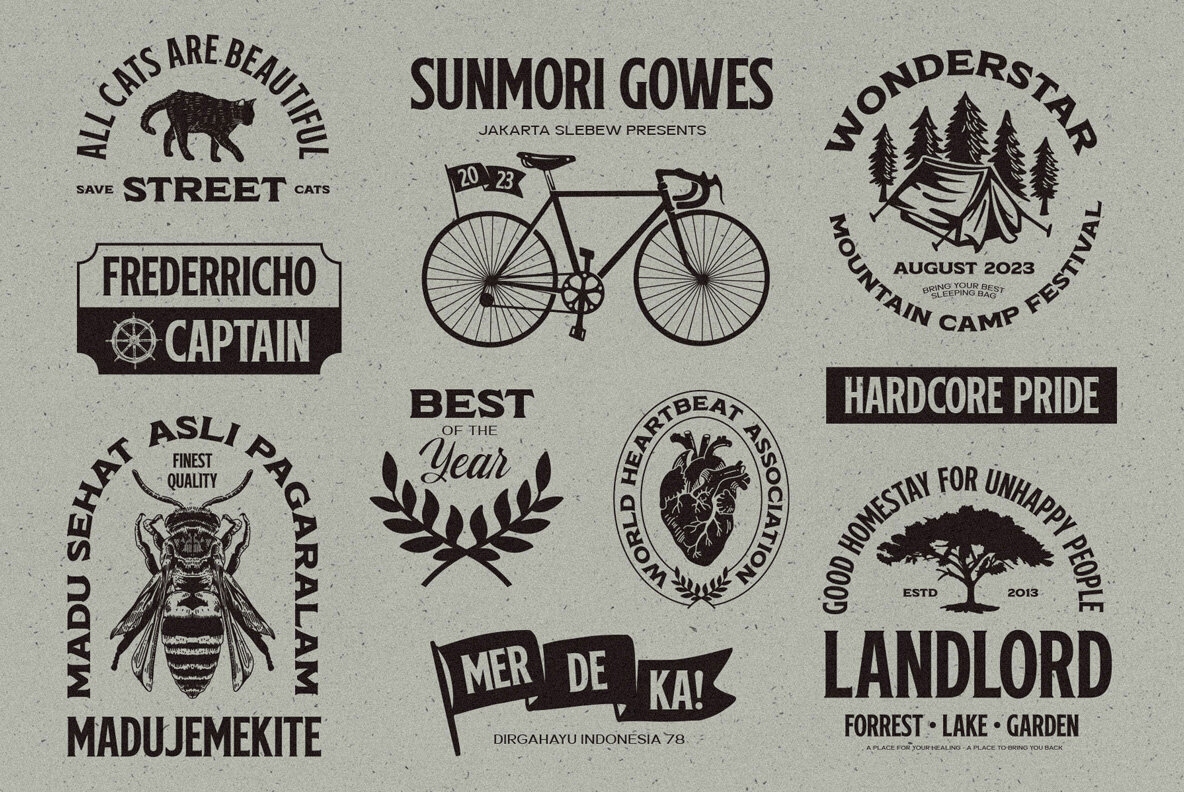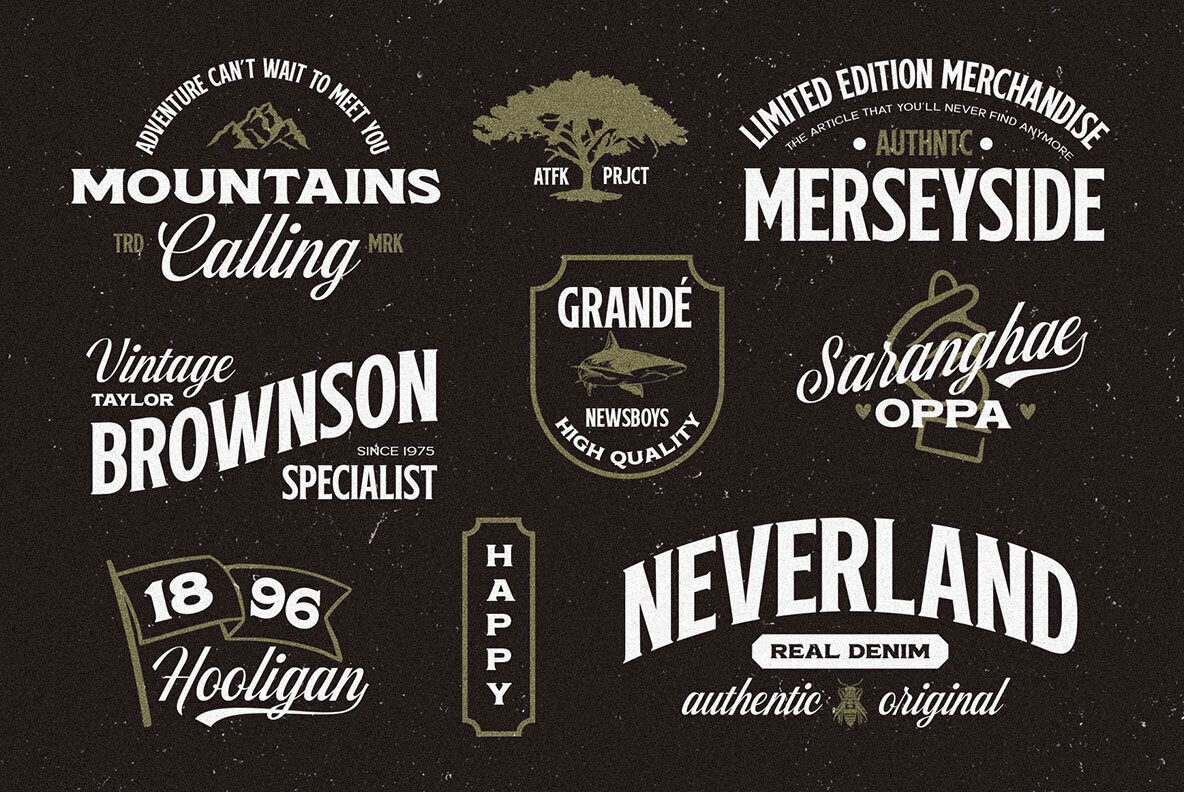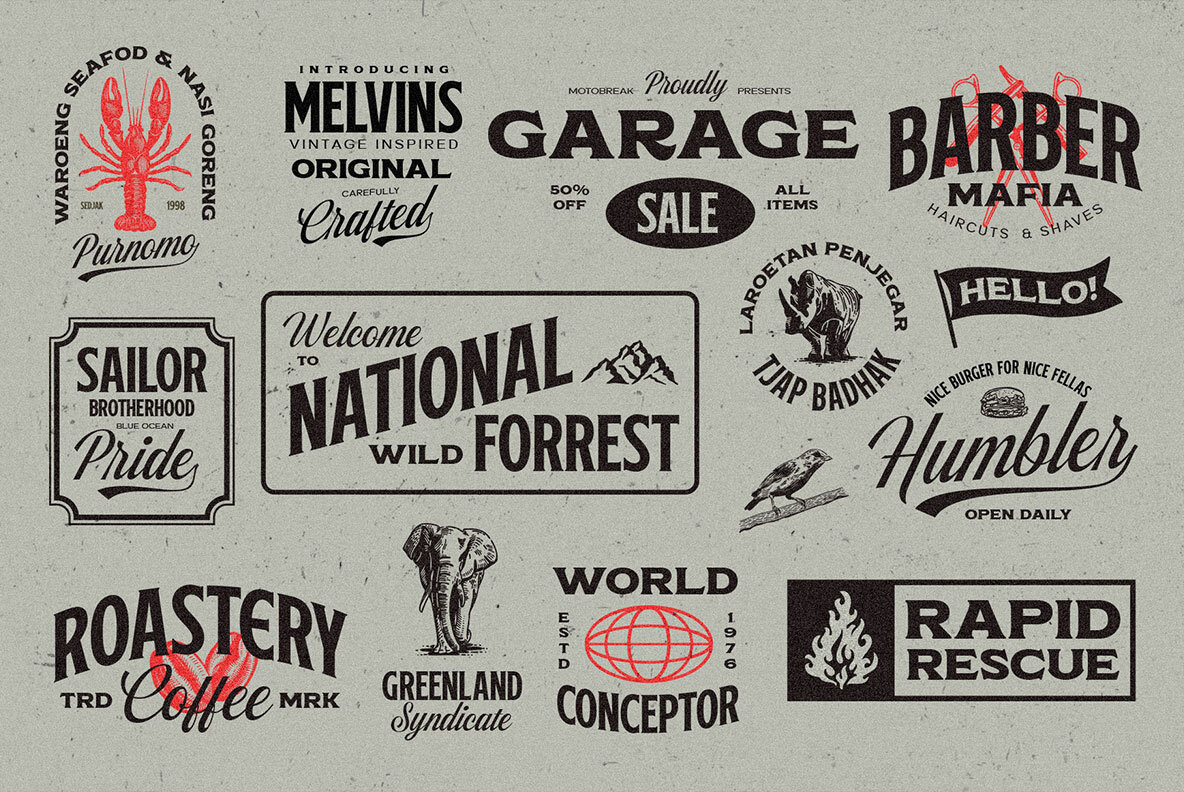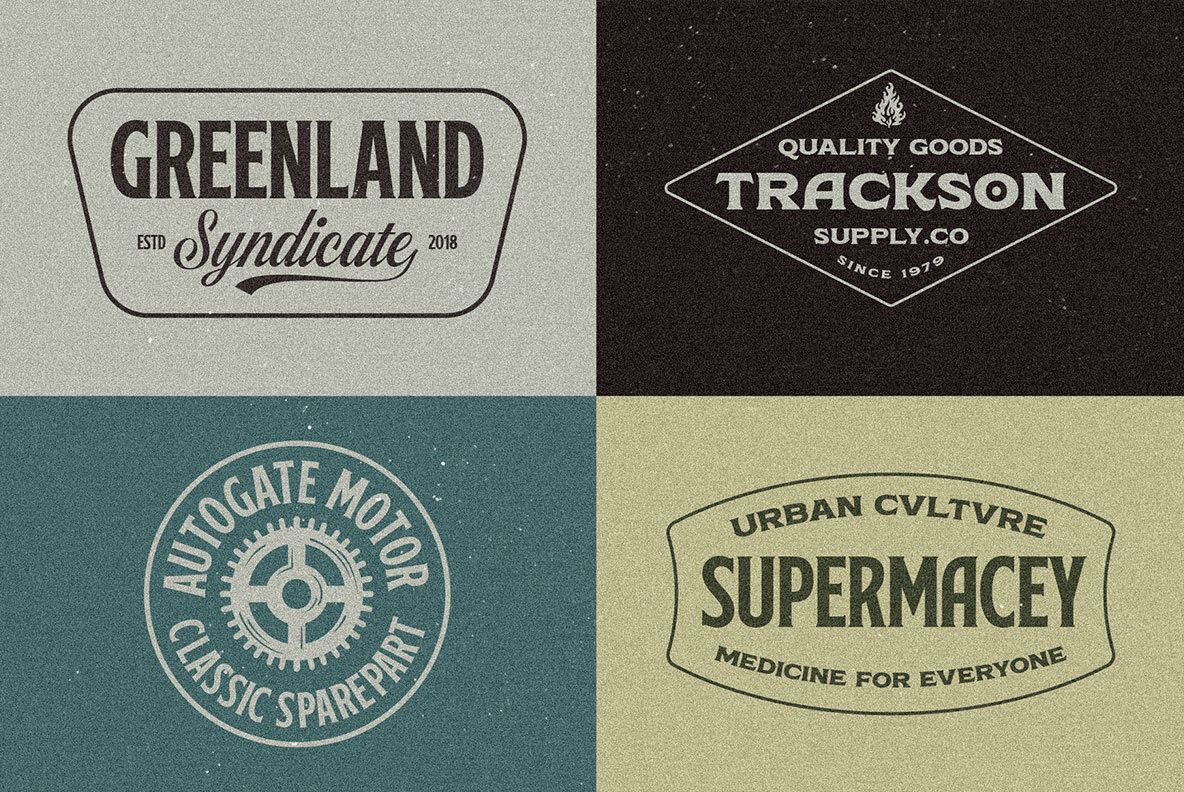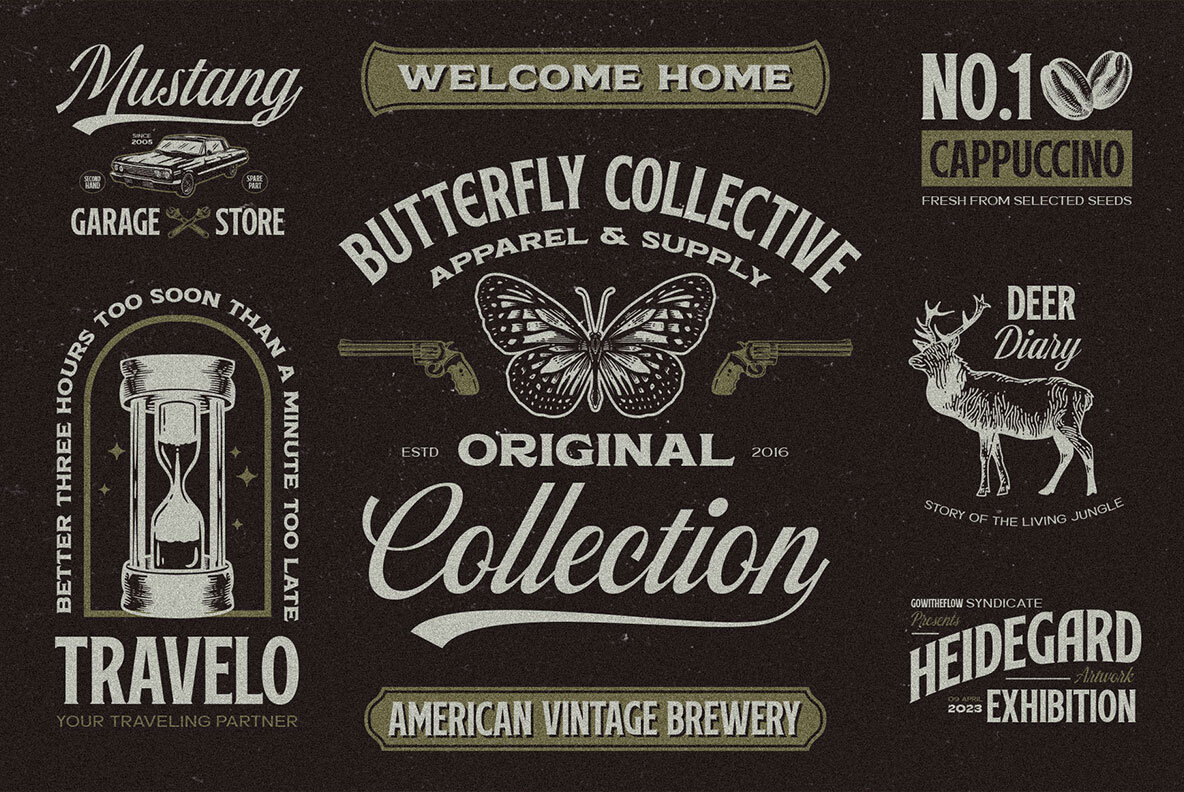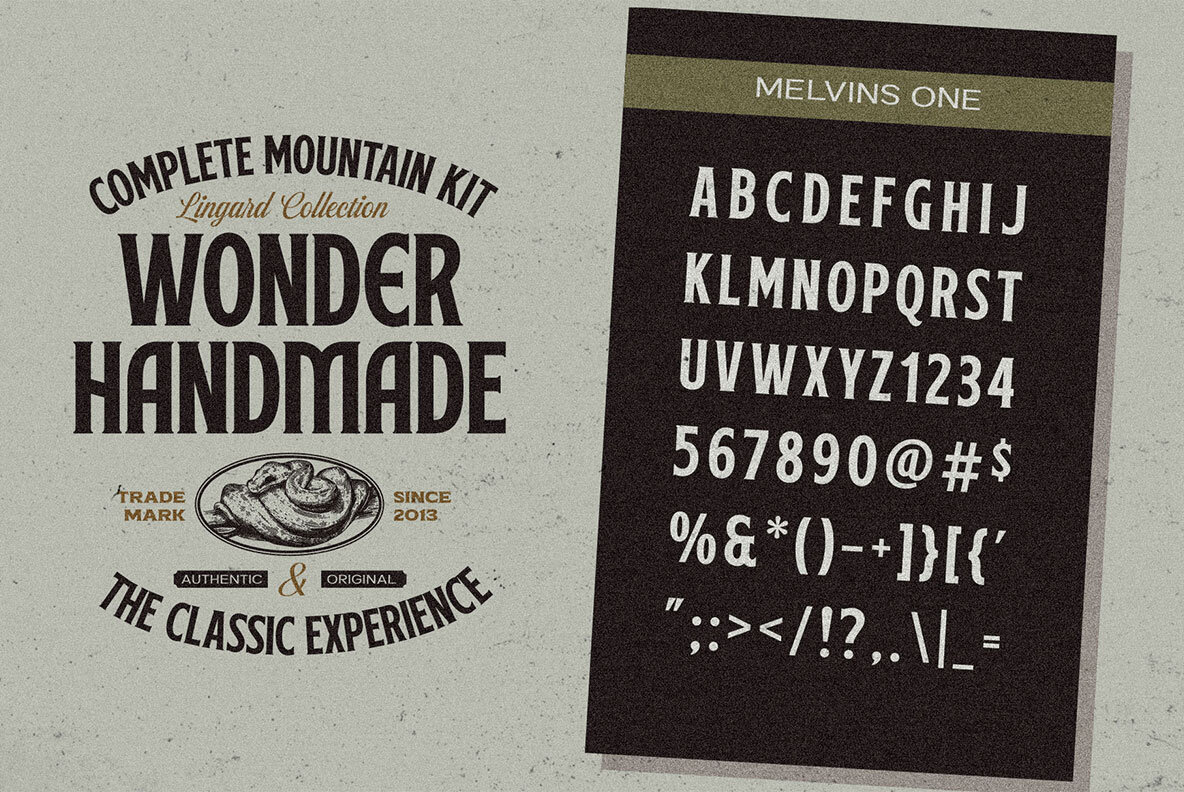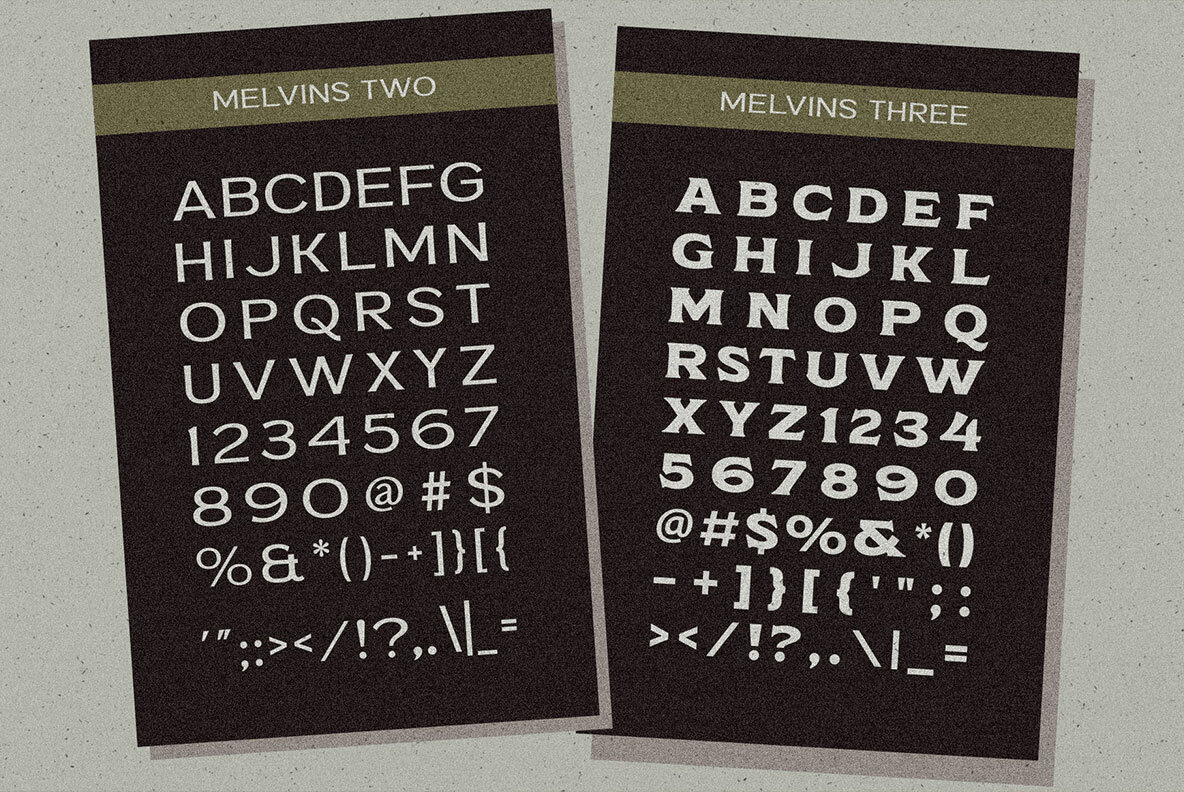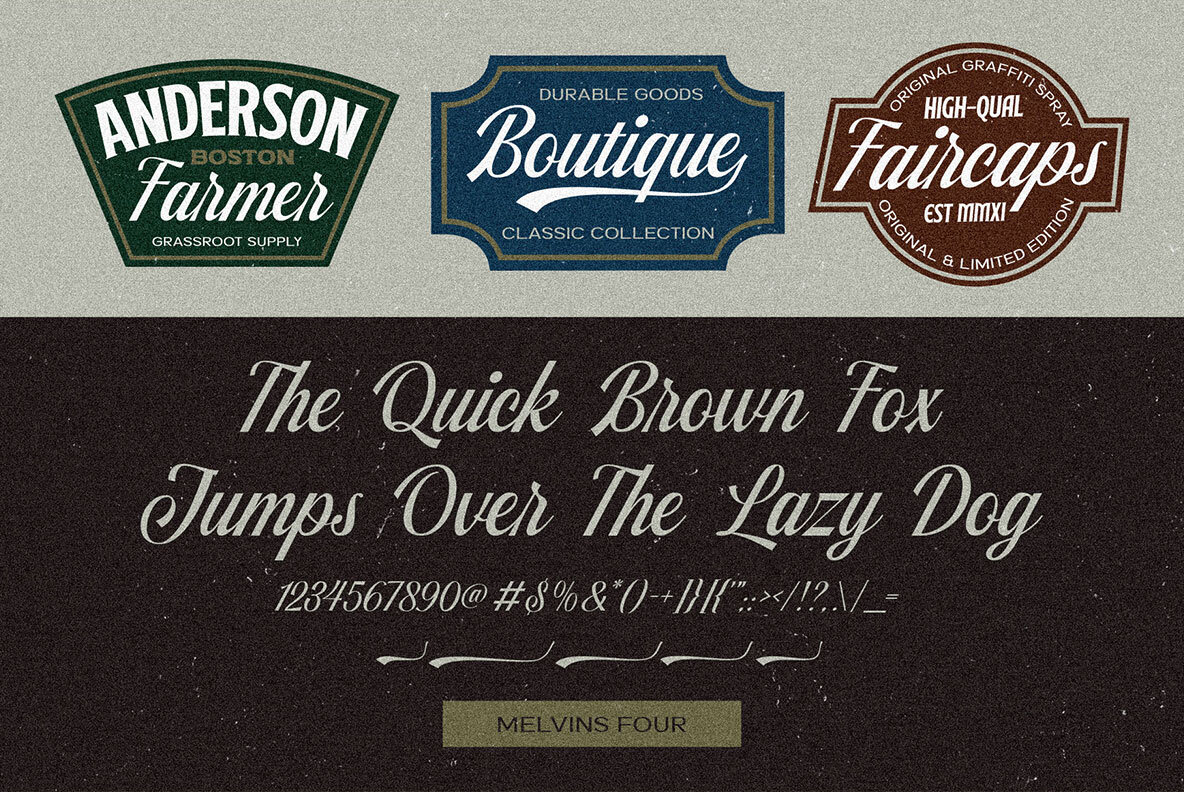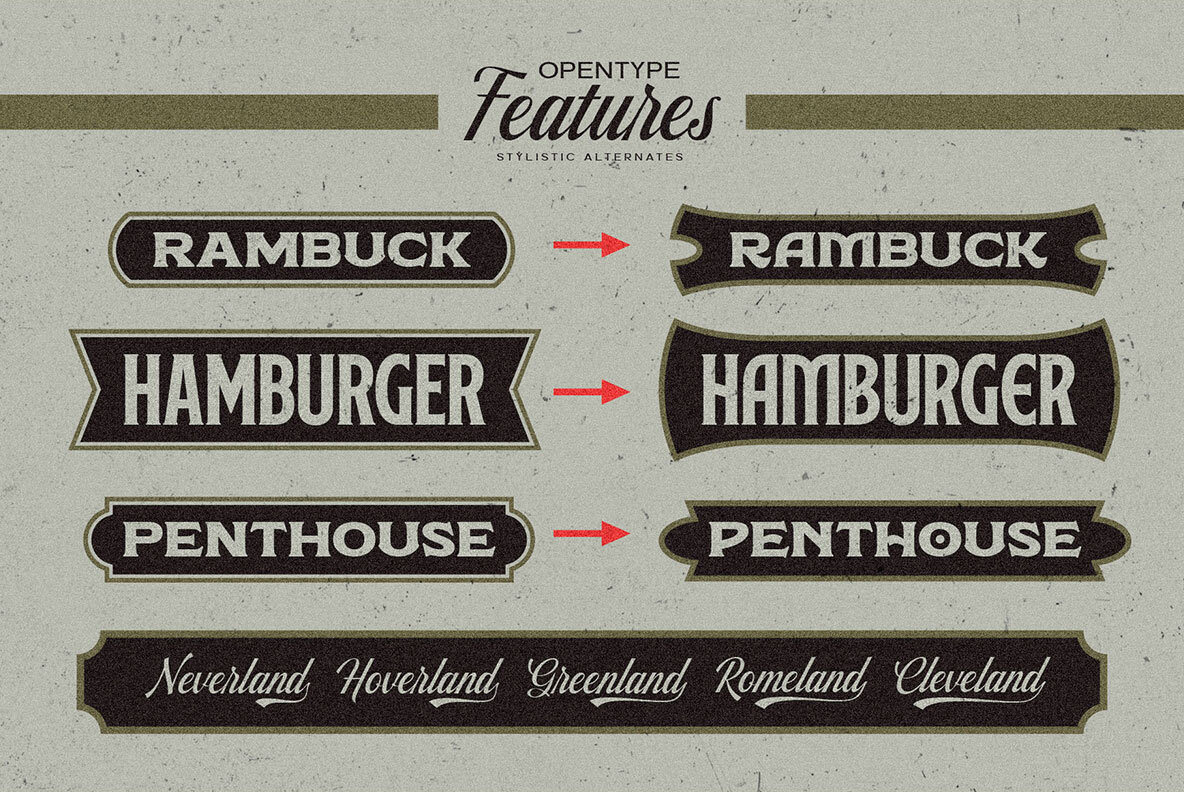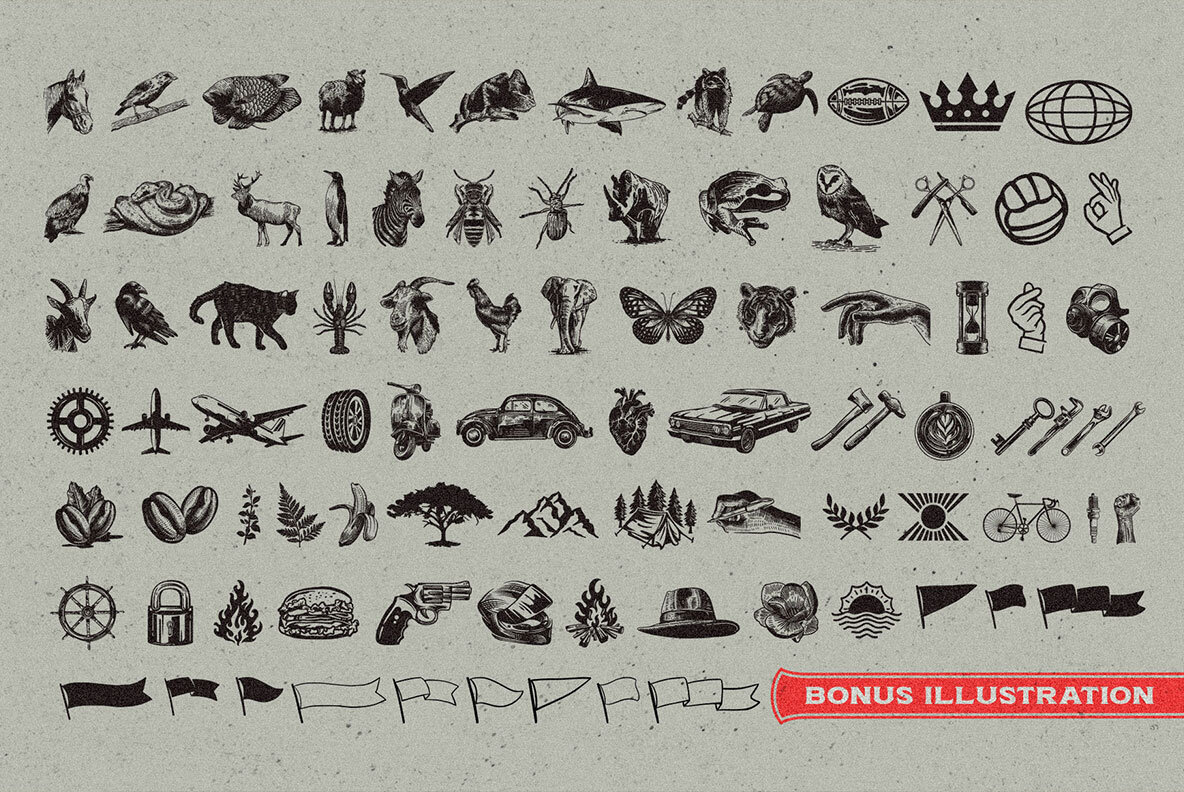
Melvins Font
The Melvins Font Set draws its unique charm from vintage design influences, offering a harmonious blend of four distinct styles. This set promises versatility and creativity, ideal for designers seeking a nostalgic yet fresh aesthetic. With its carefully crafted forms, Melvins brings out the essence of old-school elegance across various design applications. Whether crafting logos, labels, or décor, the Melvins Font Set is a go-to resource for delivering classic sophistication with a contemporary twist.Melvins Font Set: A Vintage Fusion of Style